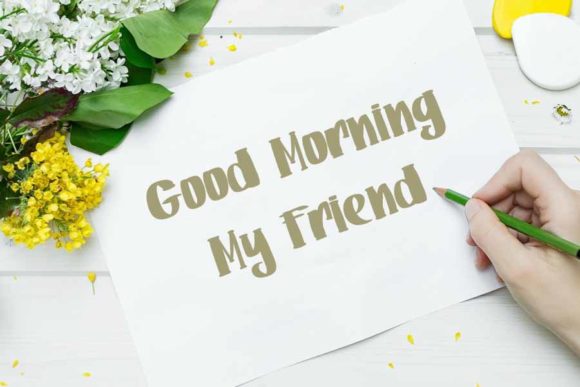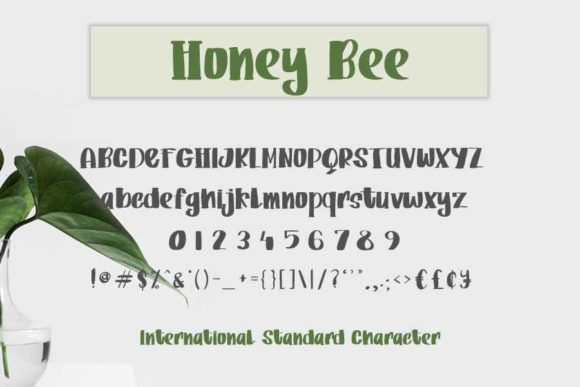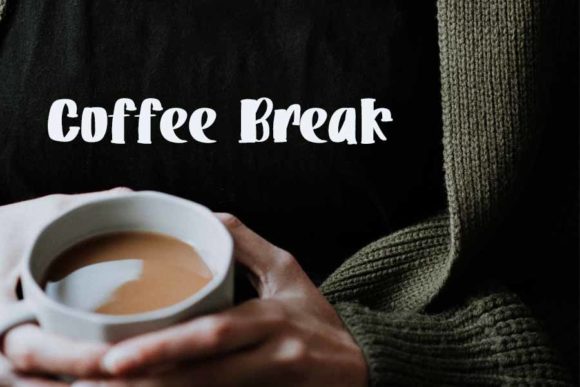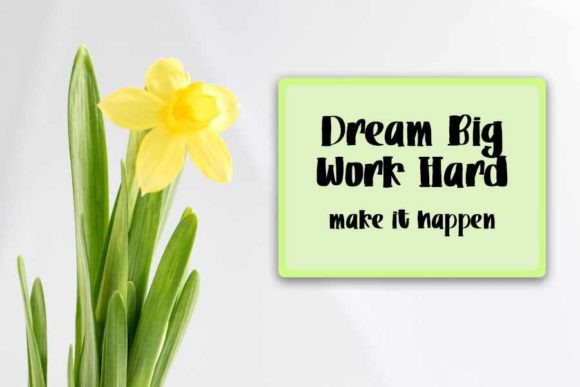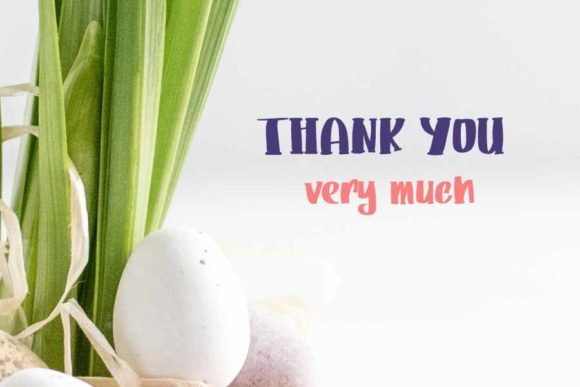
The Buzz on Honey Bee Font
Have you ever found yourself lost in a sea of fonts, searching for the perfect one to capture the essence of your brand or creative project? I know I have! The thrill of the hunt is exhilarating, but sometimes it can be overwhelming. That’s why I’m excited to introduce you to Honey Bee Font, a delightful display font that’s sure to make your designs stand out.
This cute and friendly font is perfect for adding a playful touch to your logos, branding, posters, and crafty DIY projects. With its quirky charm, Honey Bee Font is the perfect fit for designers who want to add a little personality to their work. Whether you’re a seasoned pro or a creative beginner, this font is sure to be a valuable addition to your design arsenal.
Honey Bee Font Key Features
- Unique Characteristics: The Honey Bee Font features a unique, hand-drawn design with intricate details and textures, giving it a natural, whimsical feel. The font is perfect for creating a warm and inviting atmosphere in logos, branding, and typography.
- Number of Characters: The Honey Bee Font includes a wide range of characters, including uppercase and lowercase letters, numbers, punctuation marks, and special characters, making it suitable for a variety of applications.
Honey Bee Font Review
At first glance, the Honey Bee Font seems like a delightful addition to any design project. Its playful and whimsical feel ✨ makes it perfect for children’s books, educational materials, and even advertising campaigns. The font’s rounded edges and gentle curves give off a sense of friendliness and approachability.
- ✨ Unique and playful design that adds a touch of personality to any project
- ✨ Suitable for a wide range of applications, from children’s books to advertising campaigns
- ✨ Easy to read and understand, even for younger audiences
However, there are a few limitations to consider. The font’s whimsical nature can sometimes make it difficult to use in more formal or professional settings. Additionally, the font’s design can be a bit overwhelming if used in large quantities or in complex compositions.
- ⚠️ May not be suitable for formal or professional projects
- ⚠️ Can be overwhelming in large quantities or complex compositions
Overall, I would say that the Honey Bee Font is a great addition to any design project that requires a playful and whimsical touch. While it may not be the best choice for every project, it’s definitely worth considering for applications that require a sense of fun and approachability.
Tips for Getting the Most Out of Honey Bee Font
1. Experiment with different font sizes and colors to create a visually appealing effect.
2. Use Honey Bee Font in combination with other fonts to add contrast and interest.
3. Apply bold or italic styles to draw attention to important text.
Common Use Cases for Honey Bee Font
What is the recommended font size for the Honey Bee Font?
The recommended font size for the Honey Bee Font is between 12px and 24px. This range provides optimal legibility and readability for most digital displays. However, you can experiment with different font sizes to find the perfect fit for your project.